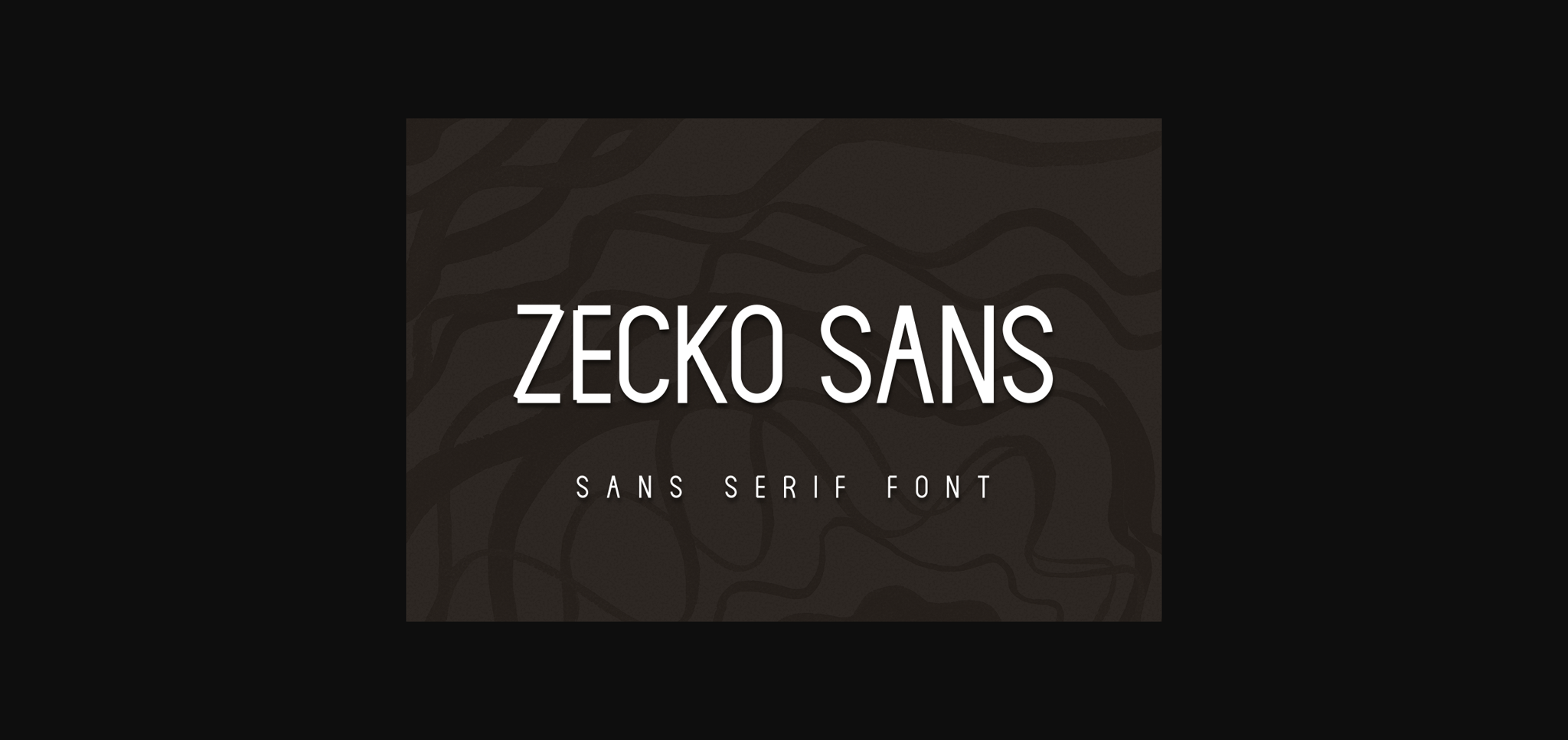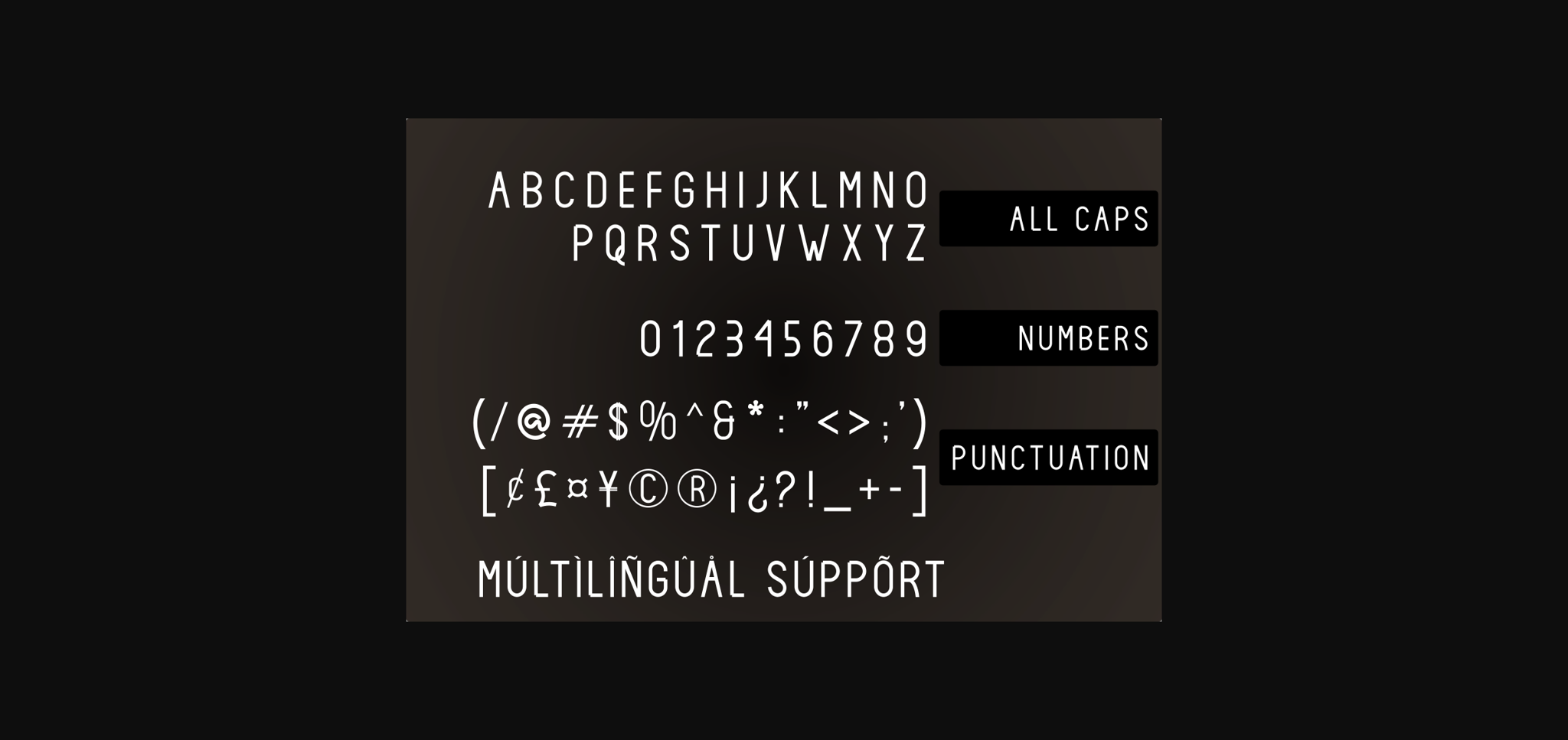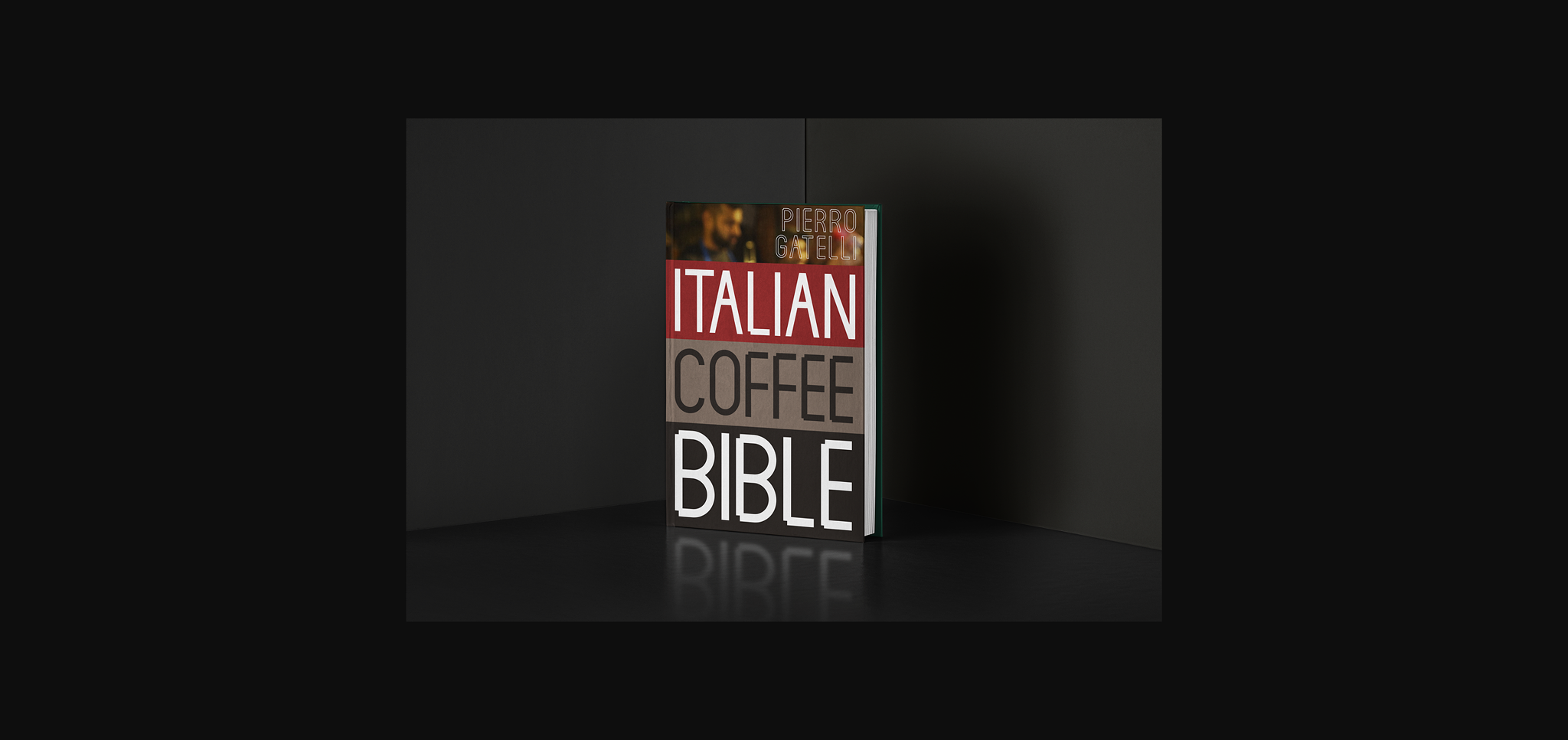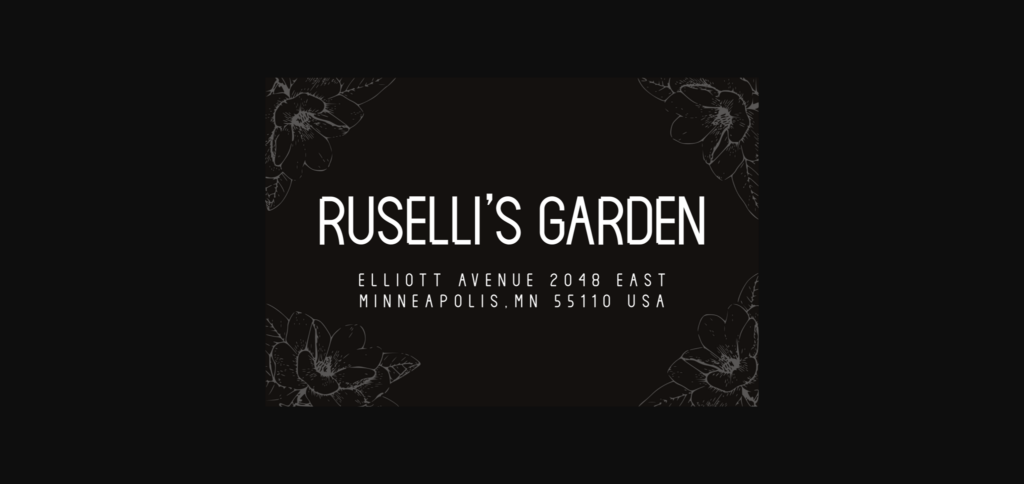
Zecko Sans Font
About Zecko Sans Font
Zecko Sans is a casual sans serif font. It’s perfect for a wide range of design projects to the highest level, be it branding, headings, wedding designs, invitations, signatures, logos, labels, and much more!